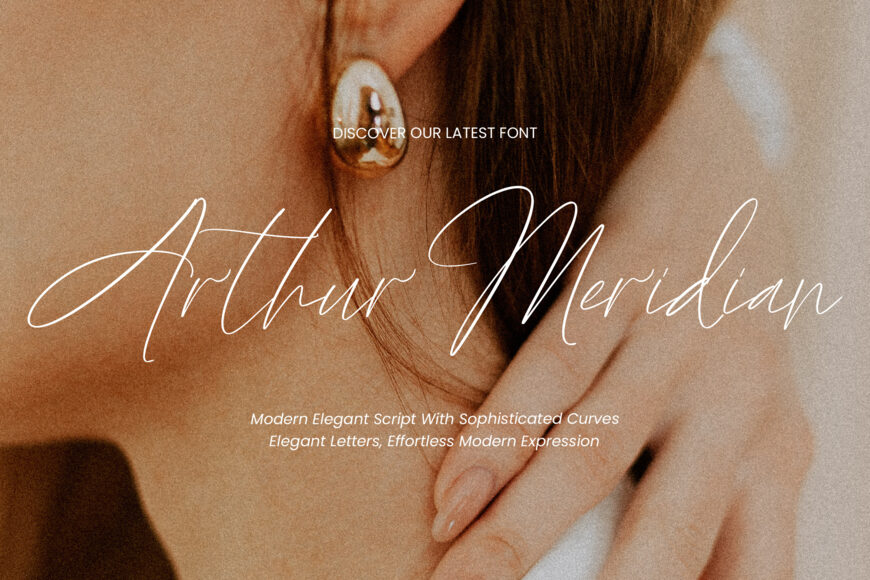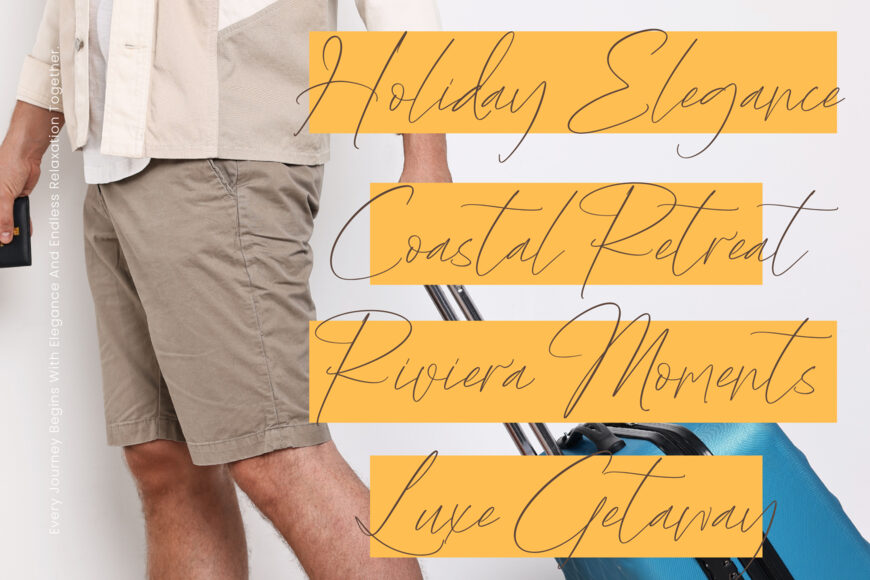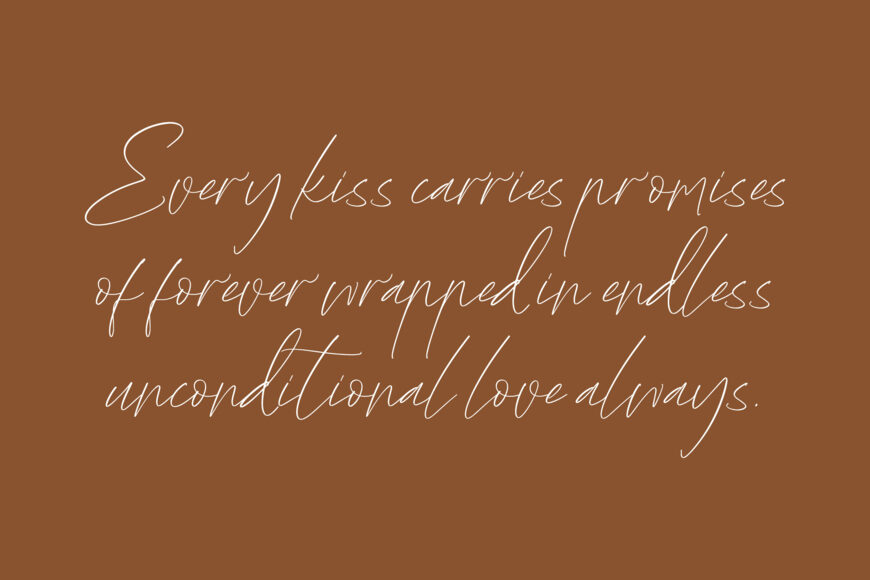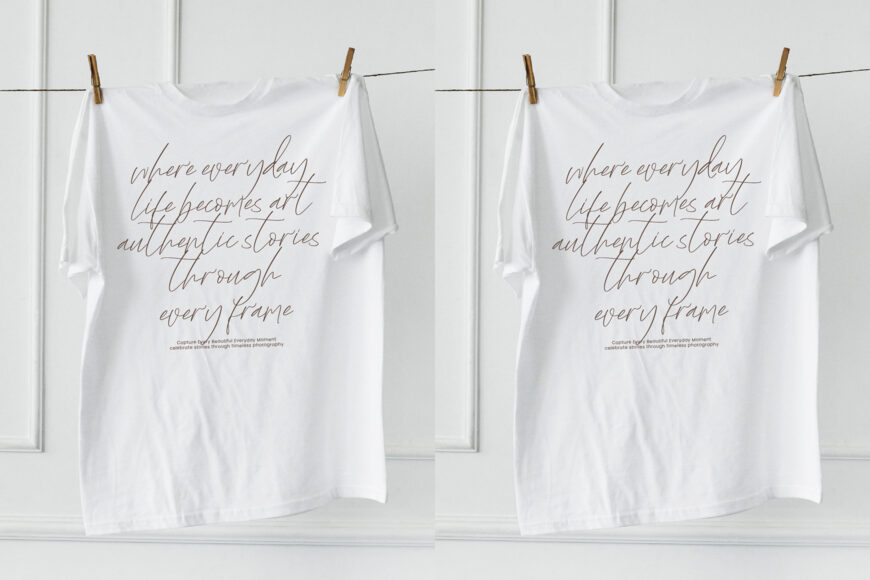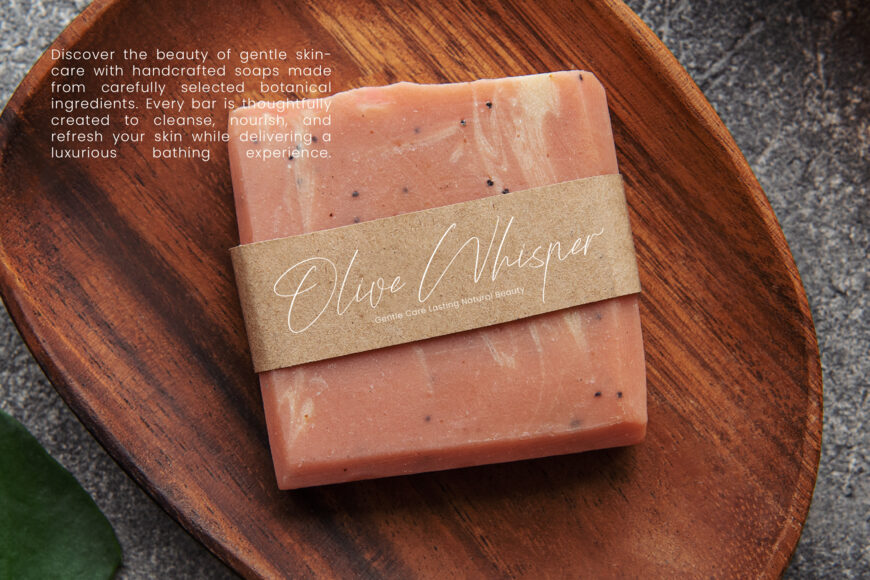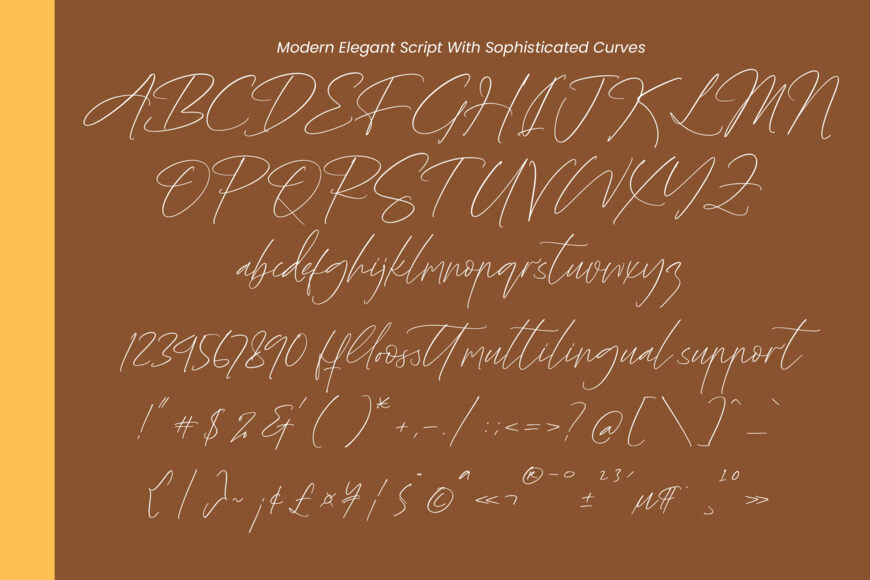
Discover Arthur Meridian, an elegant handwritten script font defined by delicate strokes, graceful curves, and a polished contemporary style. Inspired by chic personal signatures, it brings a feminine, sophisticated touch to fashion branding, wedding invitations, social media graphics, and photography overlays.
Ideal for stationery, packaging, and luxury designs, its refined letterforms add distinctive character to every project. With a fluid, graceful flow, Arthur Meridian is perfectly suited to beauty, fashion, and lifestyle creations seeking modern elegance and timeless charm.